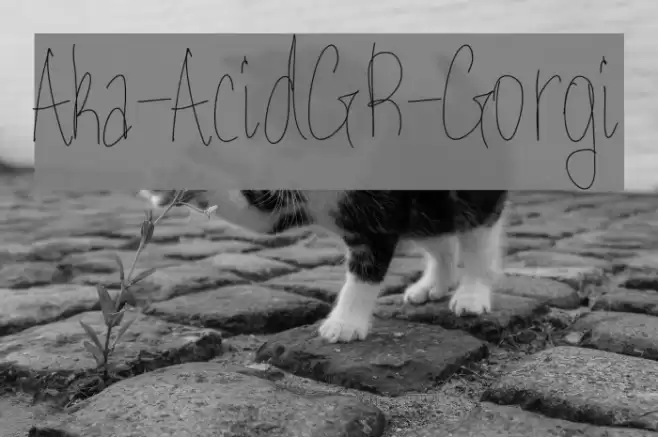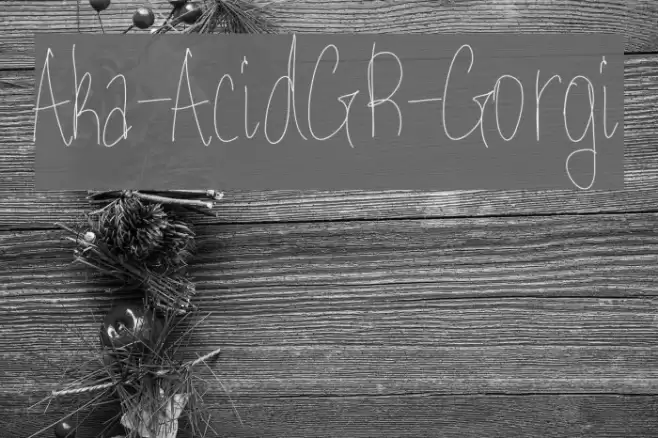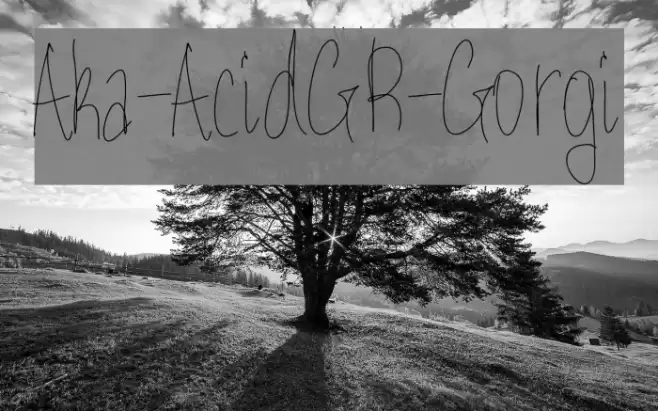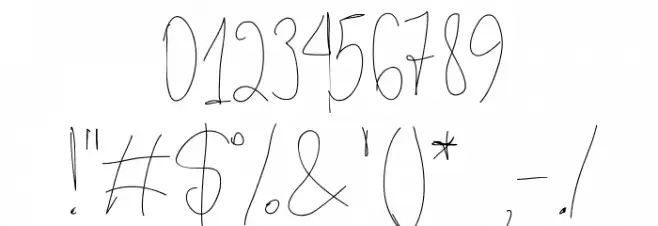
Aka-AcidGR-Gorgi Font
Aka-AcidGR-Gorgi Description
This font features a playful and whimsical handwritten style, characterized by its irregular and fluid strokes. The letters are tall and slender, with a slightly uneven baseline that adds to its casual charm. The uppercase and lowercase letters maintain a consistent style, with quirky loops and curves that give it a unique personality. The numerals and special characters follow the same playful design, making it suitable for creative and informal projects. Its overall appearance is light and airy, with a sense of spontaneity and artistic flair.
A playful, whimsical handwritten font with tall, slender letters and quirky curves from Uncategorized fonts.
- Proposed Projects: Ideal for greeting cards, children's books, playful branding, and creative invitations.
- Use Case: Logos, Invitations, Creative projects